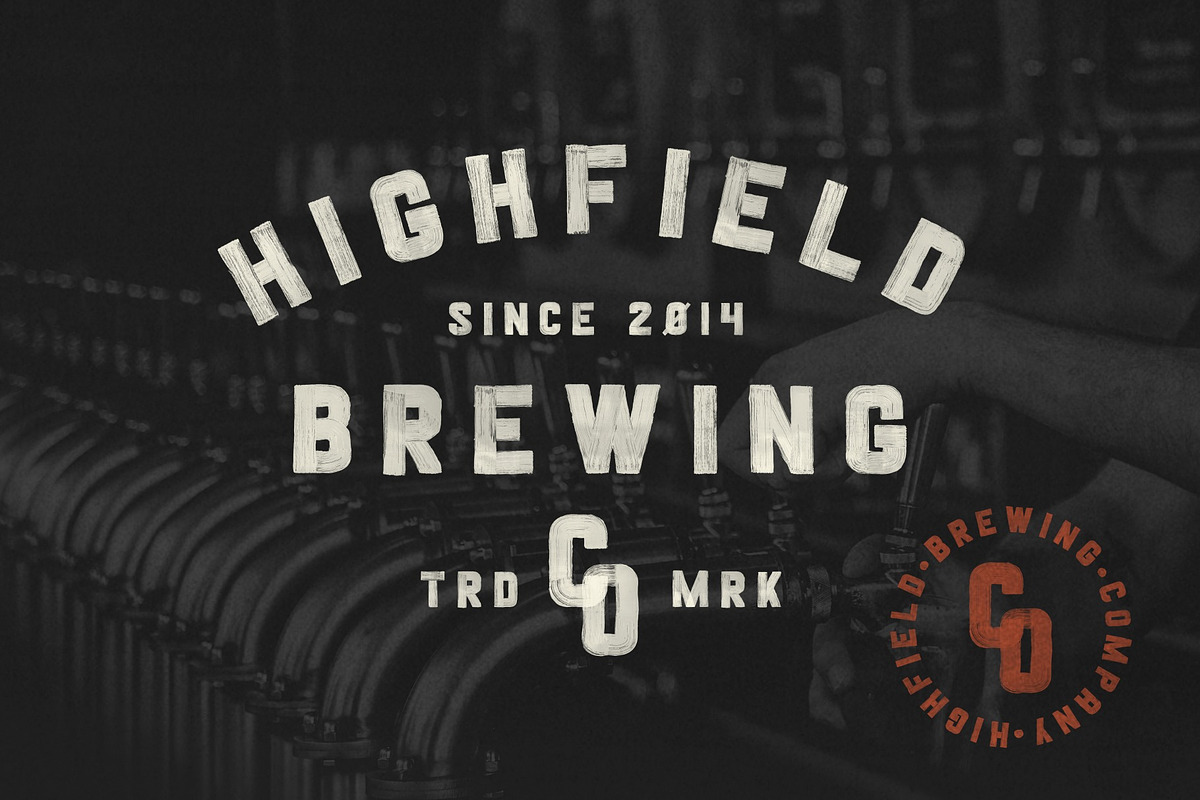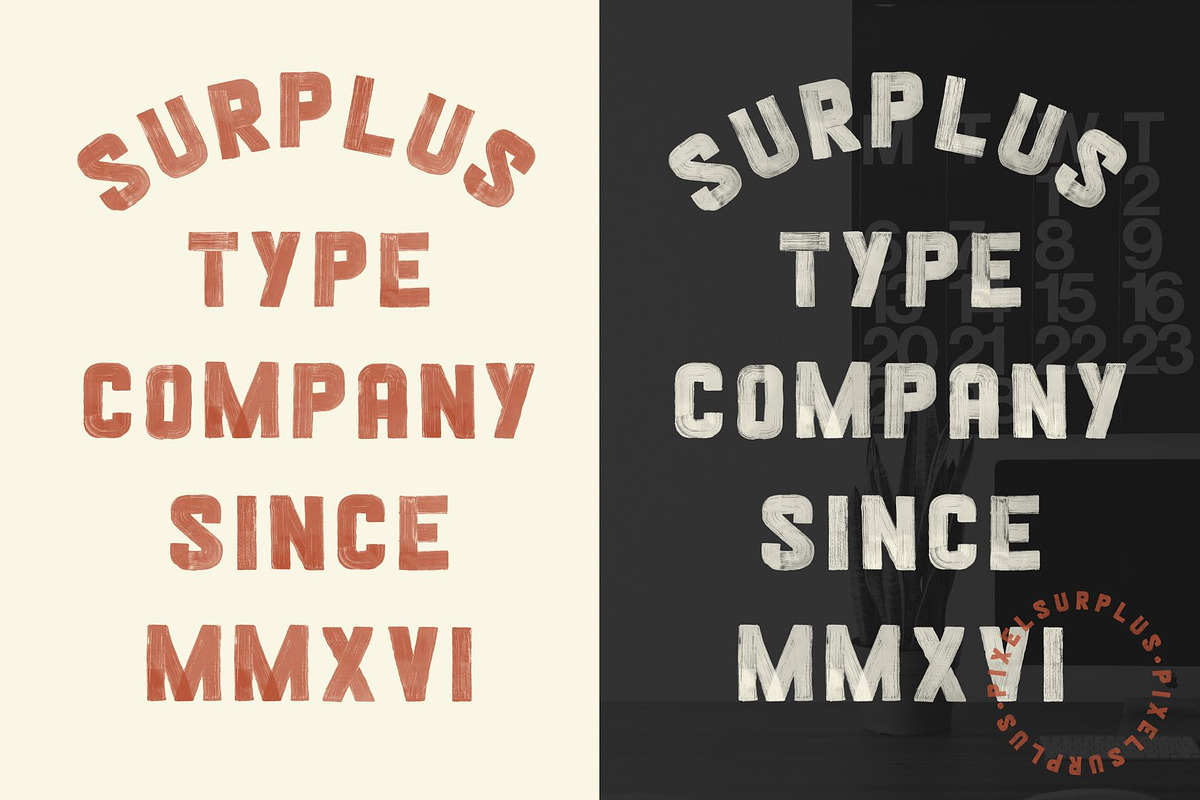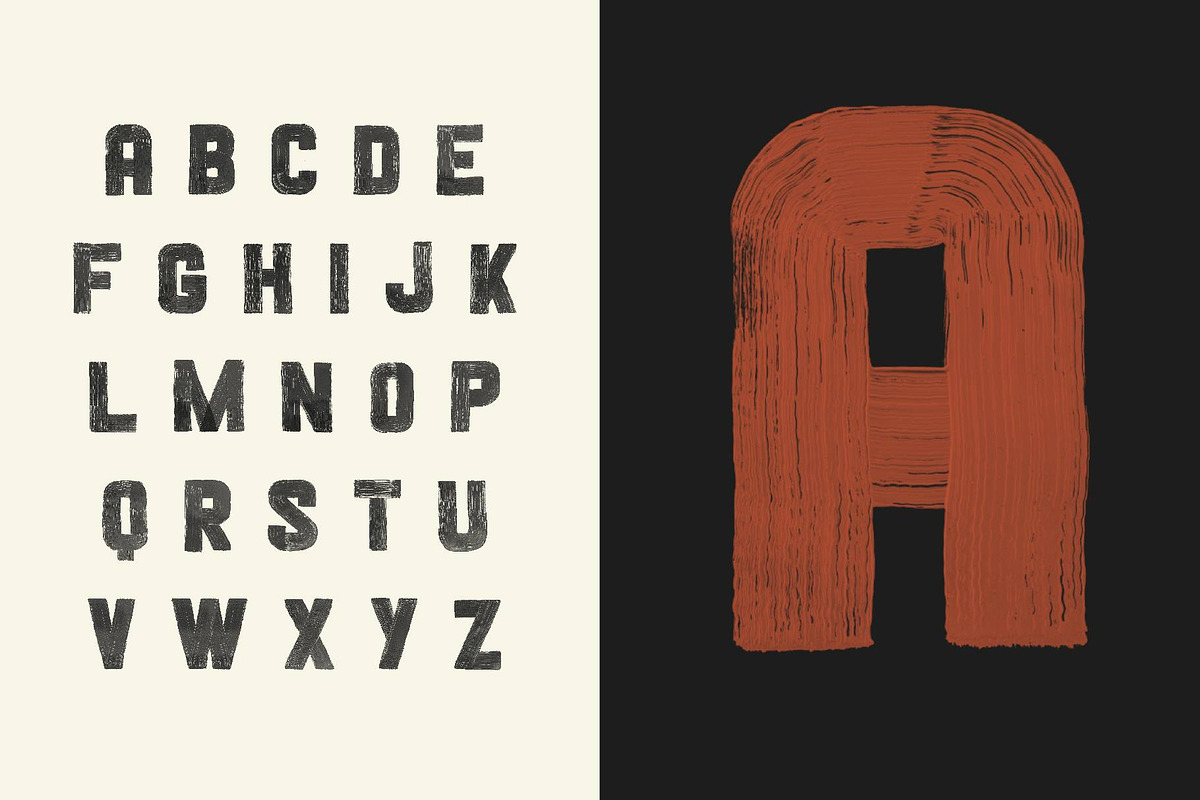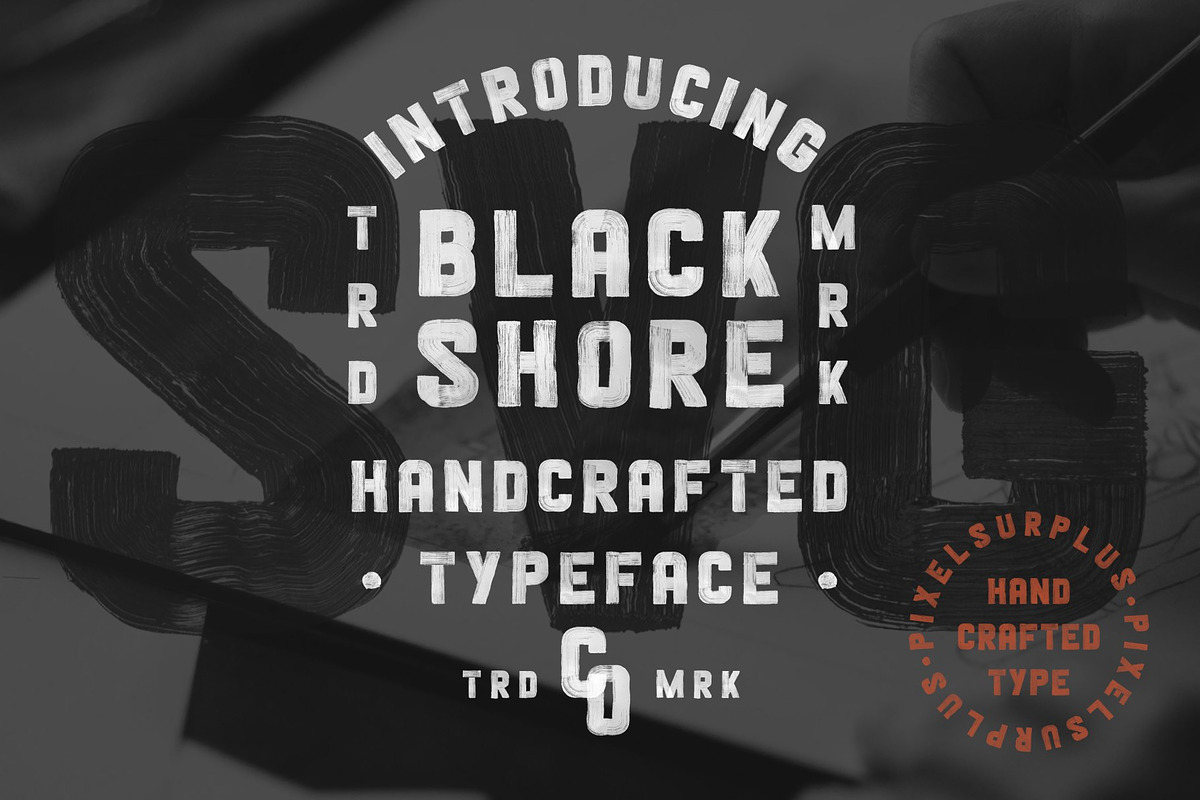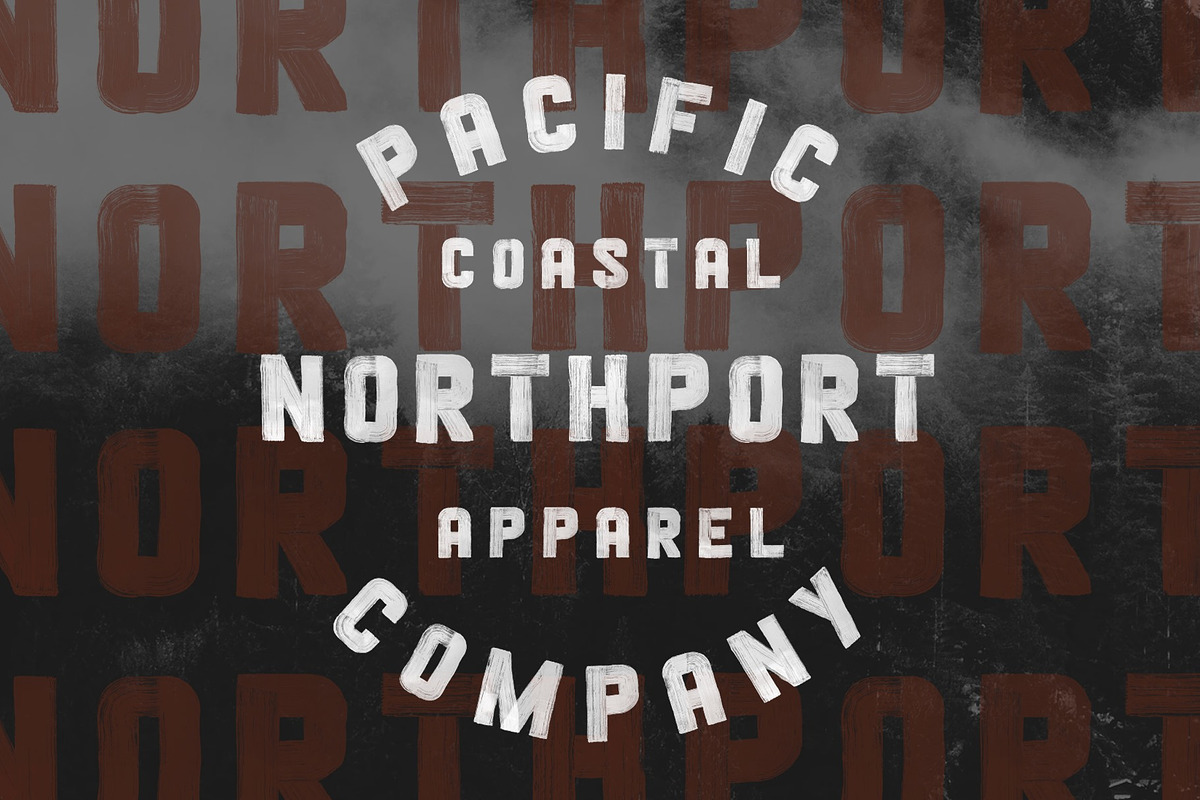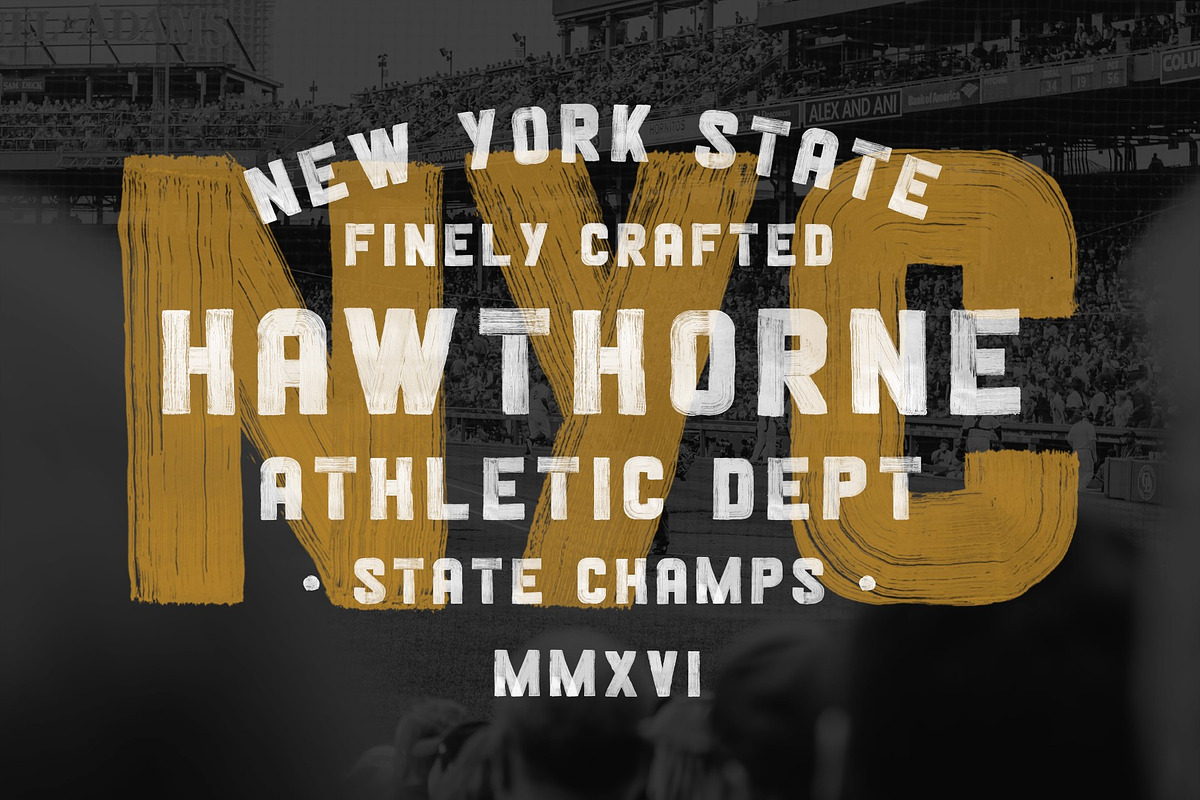
Blackshore - Hand Painted SVG Font
Blackshore is our latest hand painted sans serif font. This bold & attractive font features the natural brush strokes and imperfections of anything hand painted, giving you a truly authentic end result.
Presented here in the form vintage badges and branding, this versatile font can be used for many different styles of design. It would be equally suited for headlining an event poster, titling a website or advertising an apparel brand.